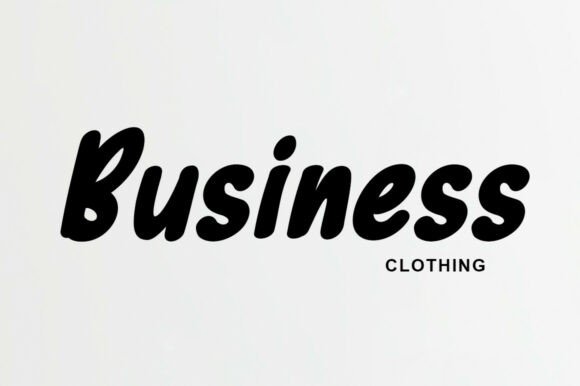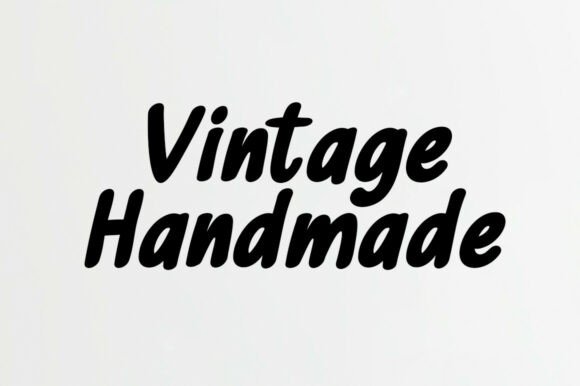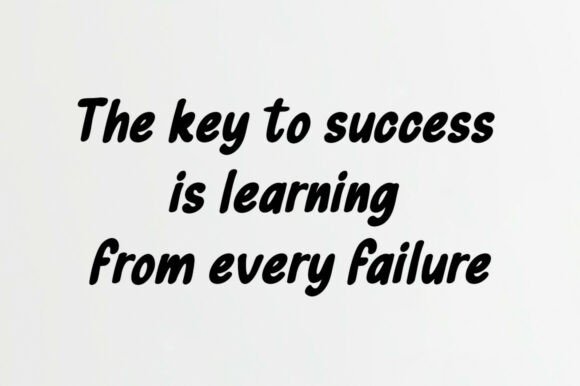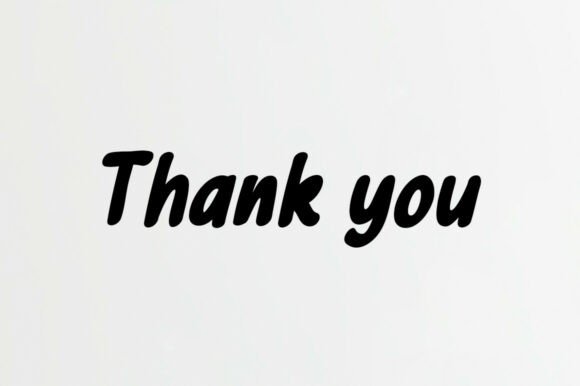
Introducing Authen Font: The Sweet and Cursive Handwritten Font for Your Design Needs
Are you looking for a font that can add a touch of elegance and romance to your designs? Look no further than Authen Font, a beautiful and cursive handwritten font that is perfect for a variety of design projects. In this article, we’ll take a closer look at Authen Font, its features, and how you can use it to elevate your designs.
What is Authen Font?
Authen Font is a sweet and cursive handwritten font that is designed to add a joyful and romantic touch to your designs. Its gentle and flowing curves make it perfect for a wide range of design ideas, from branding and logos to wedding things, greeting cards, and more.
Key Features of Authen Font
So, what makes Authen Font so special? Here are some of its key features:
- Sweet and Cursive: Authen Font has a beautiful, cursive script that is sure to add a touch of elegance to your designs.
- Handwritten: The font has a handwritten feel that makes it perfect for designs that require a personal touch.
- Gentle and Romantic: Authen Font has a soft and romantic feel that makes it perfect for wedding-related designs, greeting cards, and more.
- Versatile: The font is versatile and can be used for a wide range of design projects, from branding and logos to fashion and marketing promotions.
Use Cases for Authen Font
So, how can you use Authen Font in your designs? Here are some use cases to get you started:
- Branding and Logos: Authen Font is perfect for creating elegant and sophisticated brand identities.
- Wedding Things: The font is perfect for wedding-related designs, such as wedding invitations, save-the-date cards, and more.
- Greeting Cards: Authen Font is great for creating beautiful and heartfelt greeting cards for special occasions.
- Fashion and Lookbook: The font is perfect for fashion brands and designers who want to add a touch of elegance to their lookbooks and marketing materials.
- Marketing Promotion: Authen Font can be used to create eye-catching marketing materials, such as brochures, flyers, and more.
Why Choose Authen Font?
So, why should you choose Authen Font for your design needs? Here are some reasons:
- Elegant and Sophisticated: Authen Font adds a touch of elegance and sophistication to your designs.
- Easy to Read: The font is easy to read, even at small sizes, making it perfect for a wide range of design projects.
- Customizable: Authen Font can be customized to fit your brand’s unique needs and style.
Tips for Using Authen Font
Here are some tips for using Authen Font effectively in your designs:
- Pair it with Other Fonts: Authen Font can be paired with other fonts to create a unique and interesting design.
- Use it for Headings: The font is perfect for headings and titles, where you want to make a statement.
- Experiment with Colors: Authen Font looks great in a variety of colors, so don’t be afraid to experiment and find the perfect color for your design.
Authen Font is a beautiful and versatile font that can add a touch of elegance and romance to your designs. With its sweet and cursive handwritten script, gentle and romantic feel, and versatility, it’s perfect for a wide range of design projects. Whether you’re a designer, craft, or DIY enthusiast, Authen Font is a great choice for your design needs.